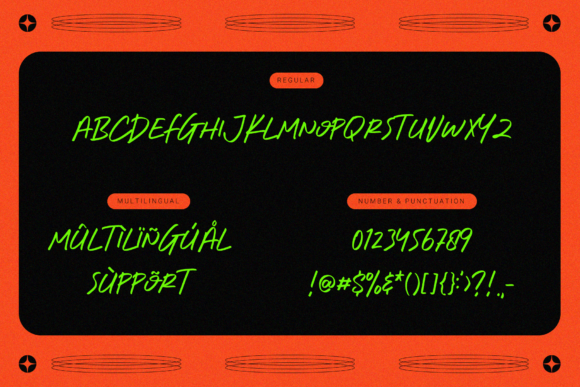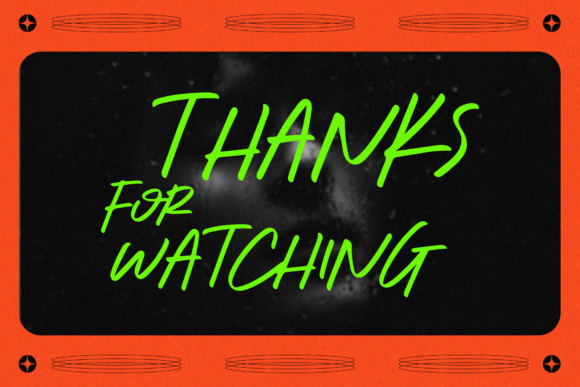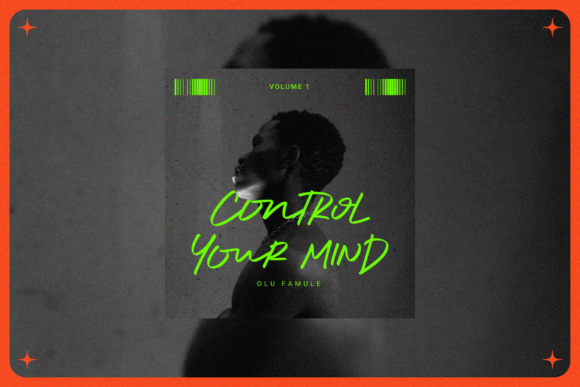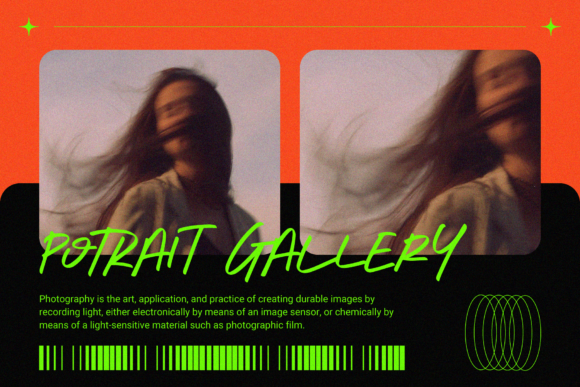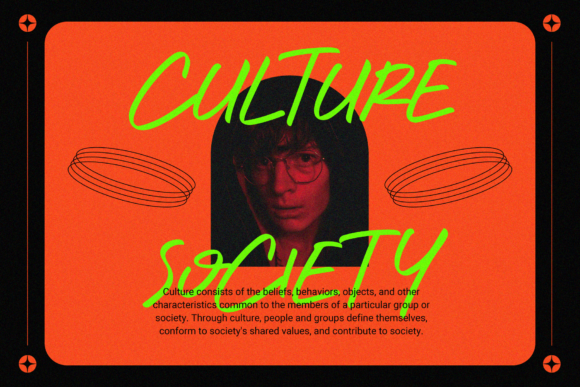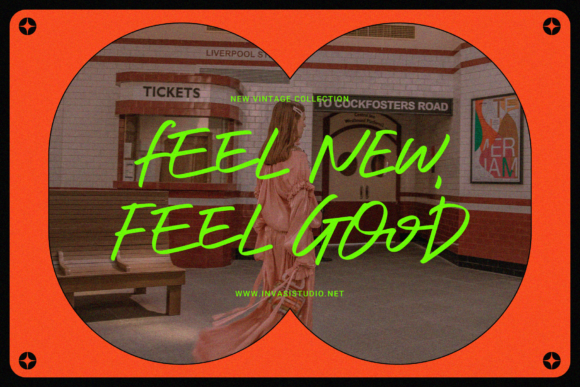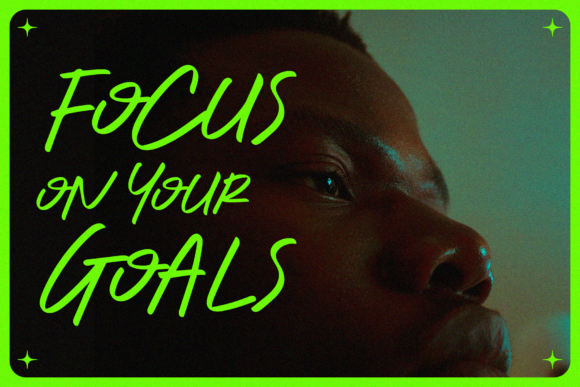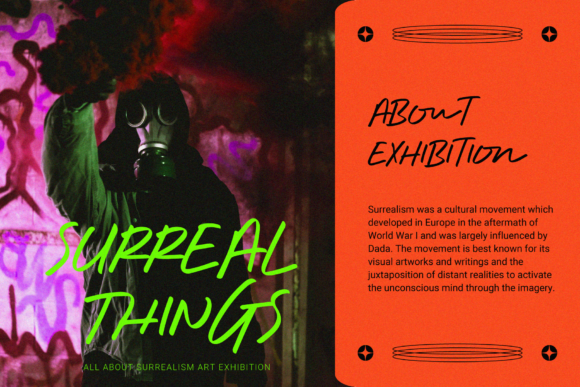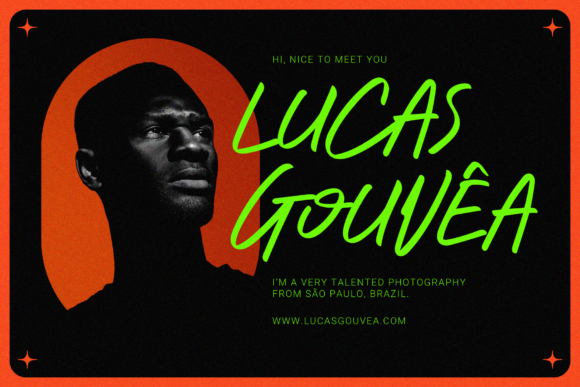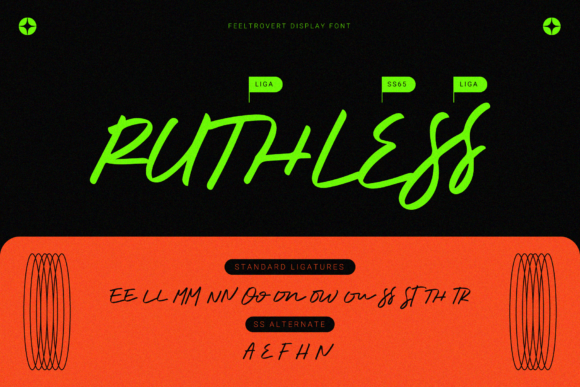
Feeltrovert Font
Feeltrovert is a beautiful and slim handwritten font that combines stylish and modern glyphs with an elegant look. It is guaranteed to add an eye-catching effect to any of your lovely projects!